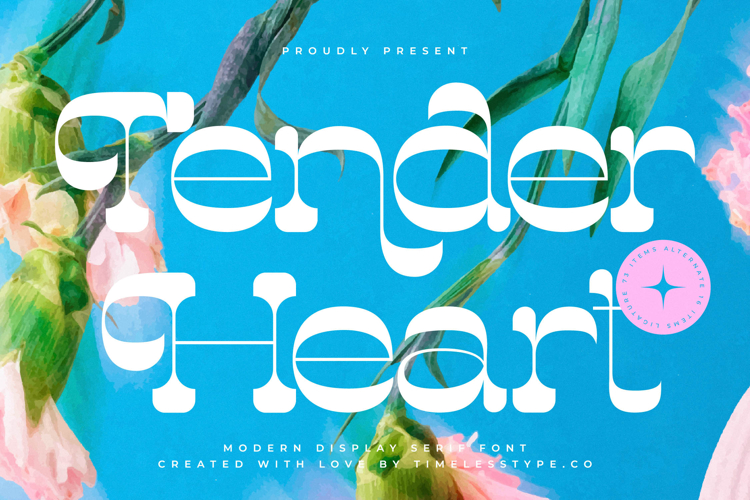
Tender Heart - Modern Display Serif Font
Make a bold statement with undeniable grace. Introducing Tender Heart - Modern Display Serif Font, a highly stylized typeface engineered for maximum visual impact. This design masterfully fuses dramatic high-contrast strokes with exaggerated, flowing curves, giving it a unique and unforgettable charm. The thick-to-thin transitions create dynamic white space, ensuring that every headline commands attention while maintaining an air of refined elegance and contemporary luxury.
Unlock infinite creative potential through sophisticated typography. Tender Heart - Modern Display Serif Font is equipped with a comprehensive suite of OpenType features, including numerous alternates, stylish swashes, and custom ligatures. These decorative elements allow designers to craft truly bespoke logos and titles, transforming standard text into a unique piece of art. This extensive toolkit provides the necessary design flexibility to create striking, professional layouts that reflect exclusive, opulent branding.
Expand your brand's reach without compromising style. With its extensive multilingual support, Tender Heart - Modern Display Serif Font adapts seamlessly across global markets, making it incredibly versatile for international projects. This global compatibility ensures that your identity retains its unique character, regardless of the language or region. It is built for designers who require both high visual quality and robust functional performance across diverse platforms.
Define the aesthetic of modern romanticism and high-end appeal. Tender Heart - Modern Display Serif Font is perfect for luxury branding, exclusive wedding invitations, sophisticated editorial mastheads, fashion packaging, and premium beauty product labels. It excels in large display sizes where its distinctive shapes can truly flourish, making it the definitive choice for projects that demand a feeling of warmth, intimacy, and unmatched sophistication. Elevate your next design project with this captivating display typeface.